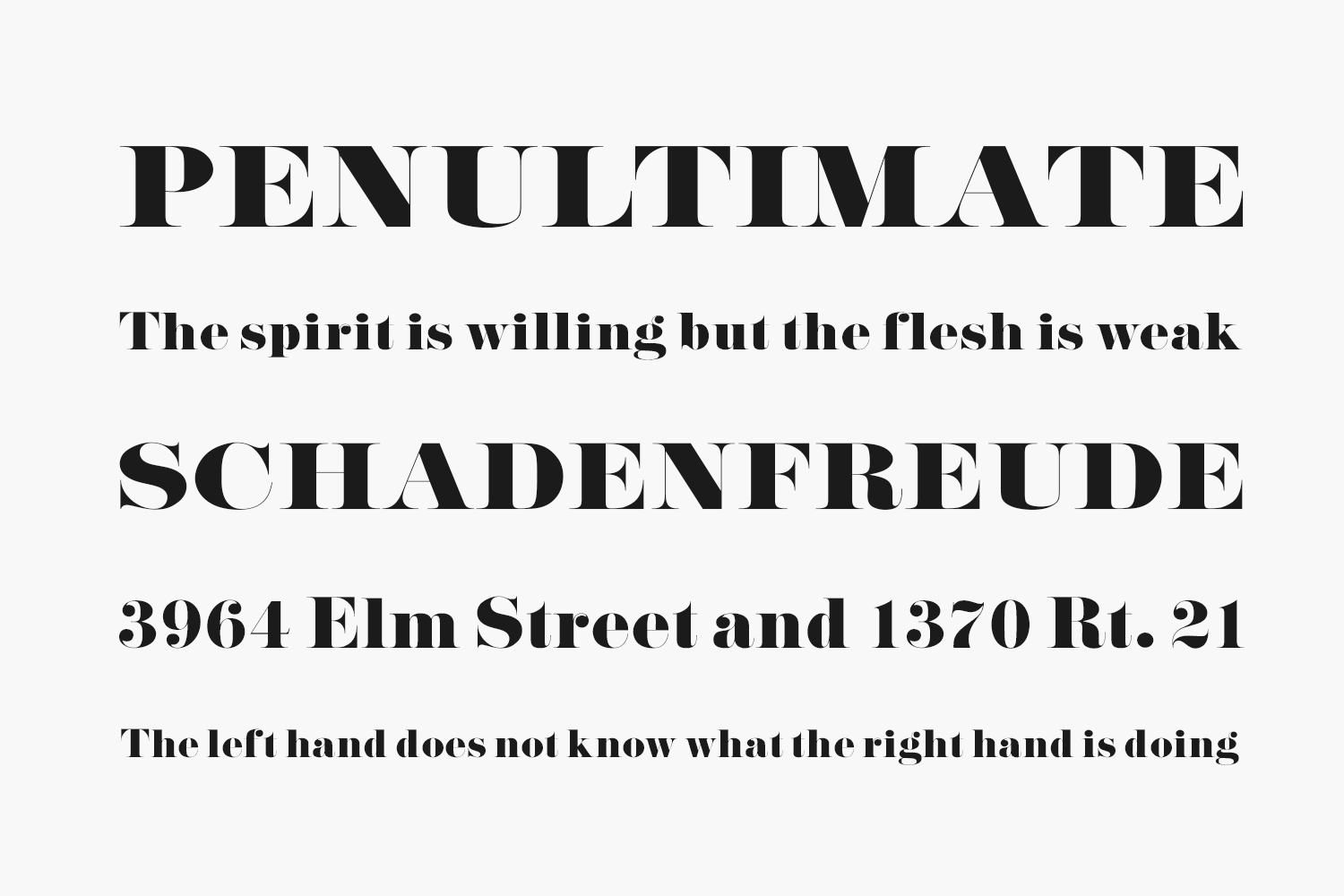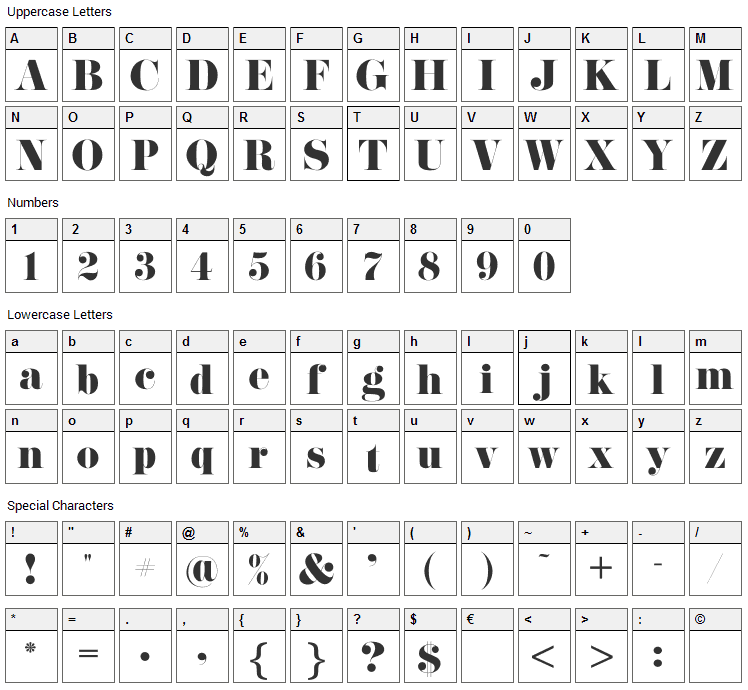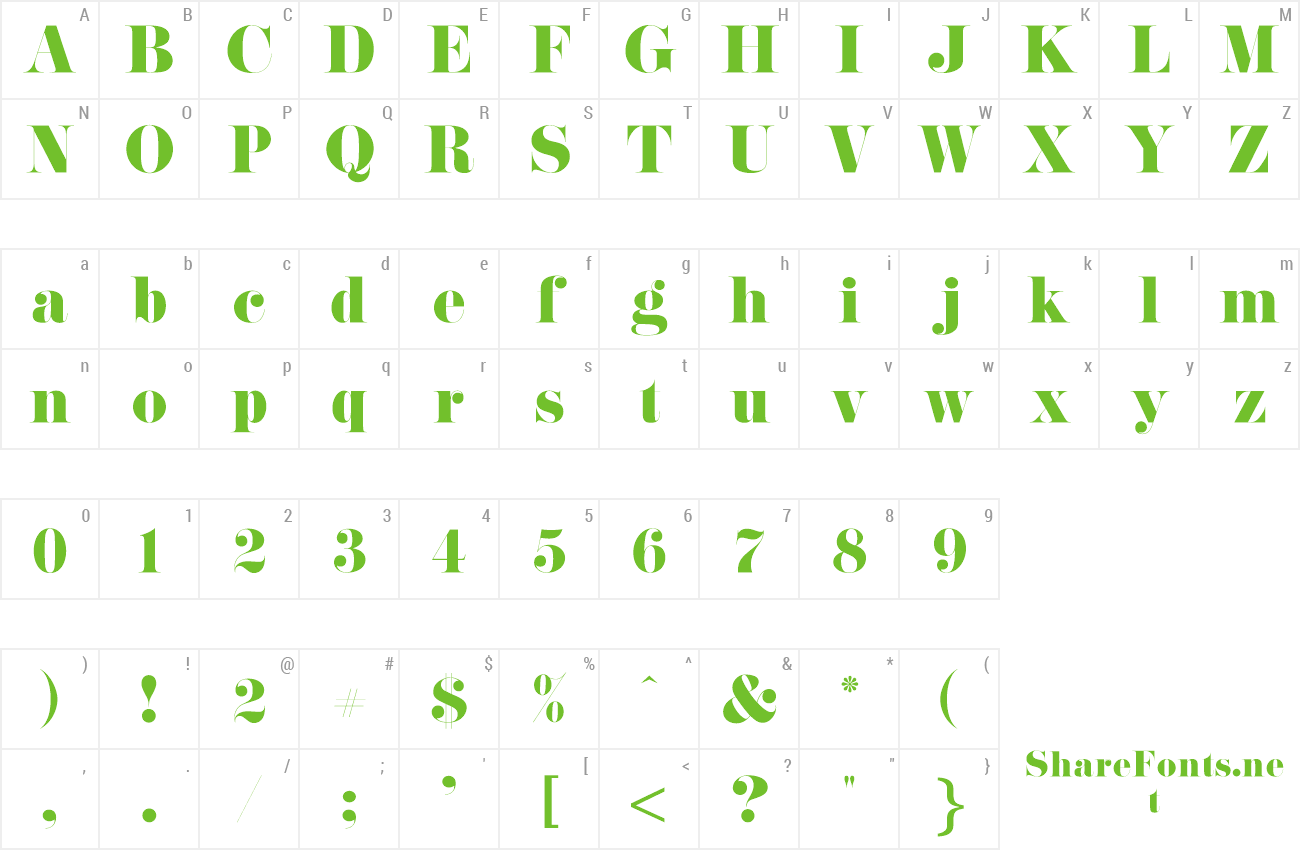
Pistilli Roman Font Download - Web download the pistilli roman font by claudep, a free serif font with 42,947 downloads. The pistilli roman font is a classic roman font. 907,197 downloads (186 yesterday) 10 comments donationware. Web in basic > serif. Web pistilli roman font download is available free from fontget. Pistilli roman is a basic type font that can be used on any device.